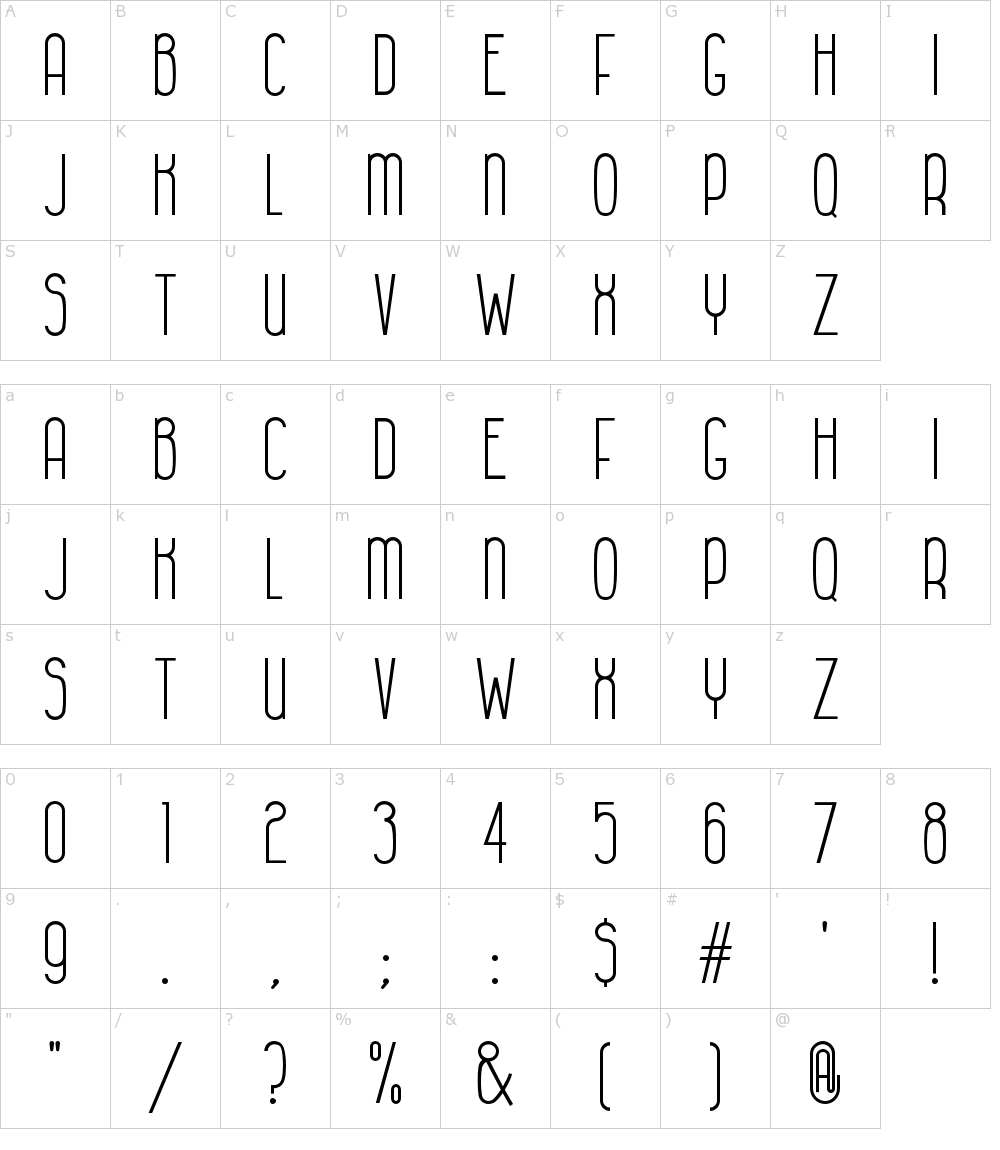
colonial havana
Colonial Havana Font offers a unique vintage style in TTF, OTF, and WOFF formats. Ideal for historical designs, branding, and artistic projects.
Explore the Charming Colonial Havana Font
Colonial Havana Font, crafted by the talented designer Alex Martinez in 2022, captures the essence of vintage elegance inspired by classic Cuban architecture. Perfect for web design, print media, and branding, this font breathes life into any project, evoking a sense of nostalgia and charm.
The Inspiration Behind Colonial Havana Font
Inspired by the patterned tiles and rich textures found throughout historic Havana, Colonial Havana Font combines intricate details with modern usability. Alex Martinez’s work reflects a deep appreciation for the artistic heritage of Cuba, seamlessly bridging the old world with contemporary design needs.
Ideal Use Cases for Colonial Havana Font
Colonial Havana is ideal for a variety of applications including branding, promotional materials, wedding invitations, and art projects that require a touch of vintage flair. The font’s unique style helps create enchanting visuals that stand out in both digital and print environments.